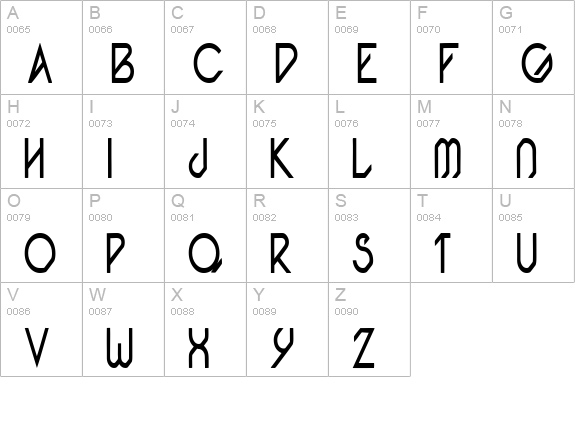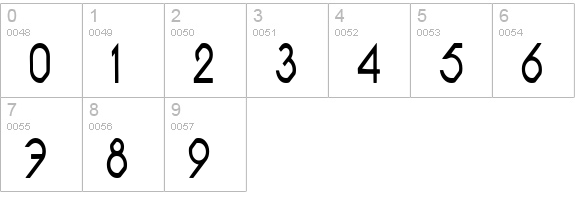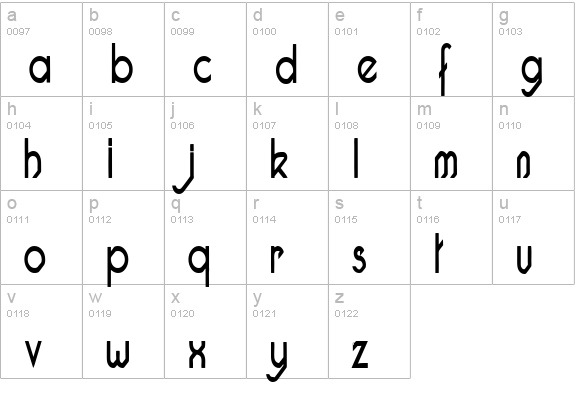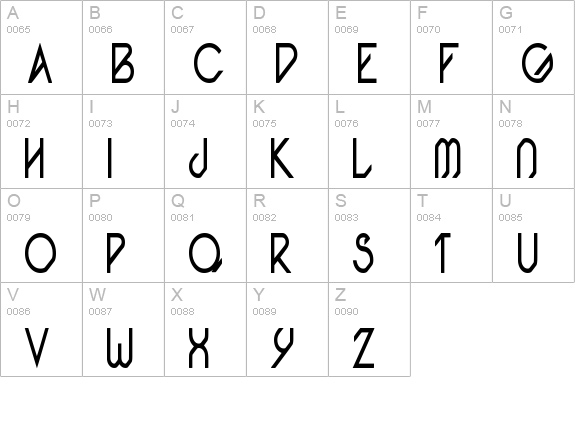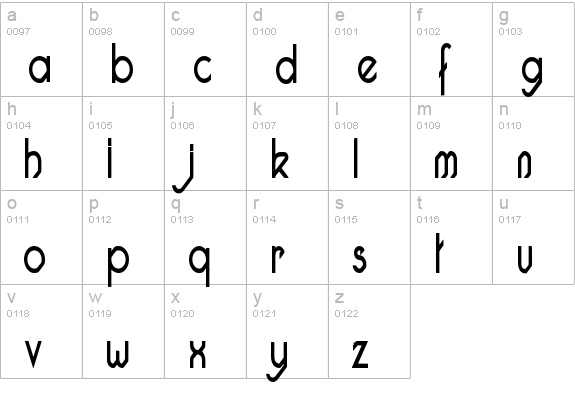
Pacotillenarrow regular is the standard, neutral variant in the Pacotillenarrow typeface family \xE2\x80\x94 well suited to general body text, paragraphs, and standard typographic work.
Pacotillenarrow regular font is a sleek and modern typeface that is perfect for a wide range of design projects. With its clean lines and contemporary style, this font is sure to make your work stand out. The narrow width of the characters adds a unique touch to any design, making it ideal for headings, titles, and branding. The best part about Pacotillenarrow regular font is that it is completely free to download at FontsMarket.com. This means you can easily incorporate this stylish font into your projects without any cost involved. Whether you're working on a website, poster, logo, or any other creative endeavor, Pacotillenarrow regular font is sure to elevate your design with its modern and sophisticated look. Download it today and see the difference it can make in your work!